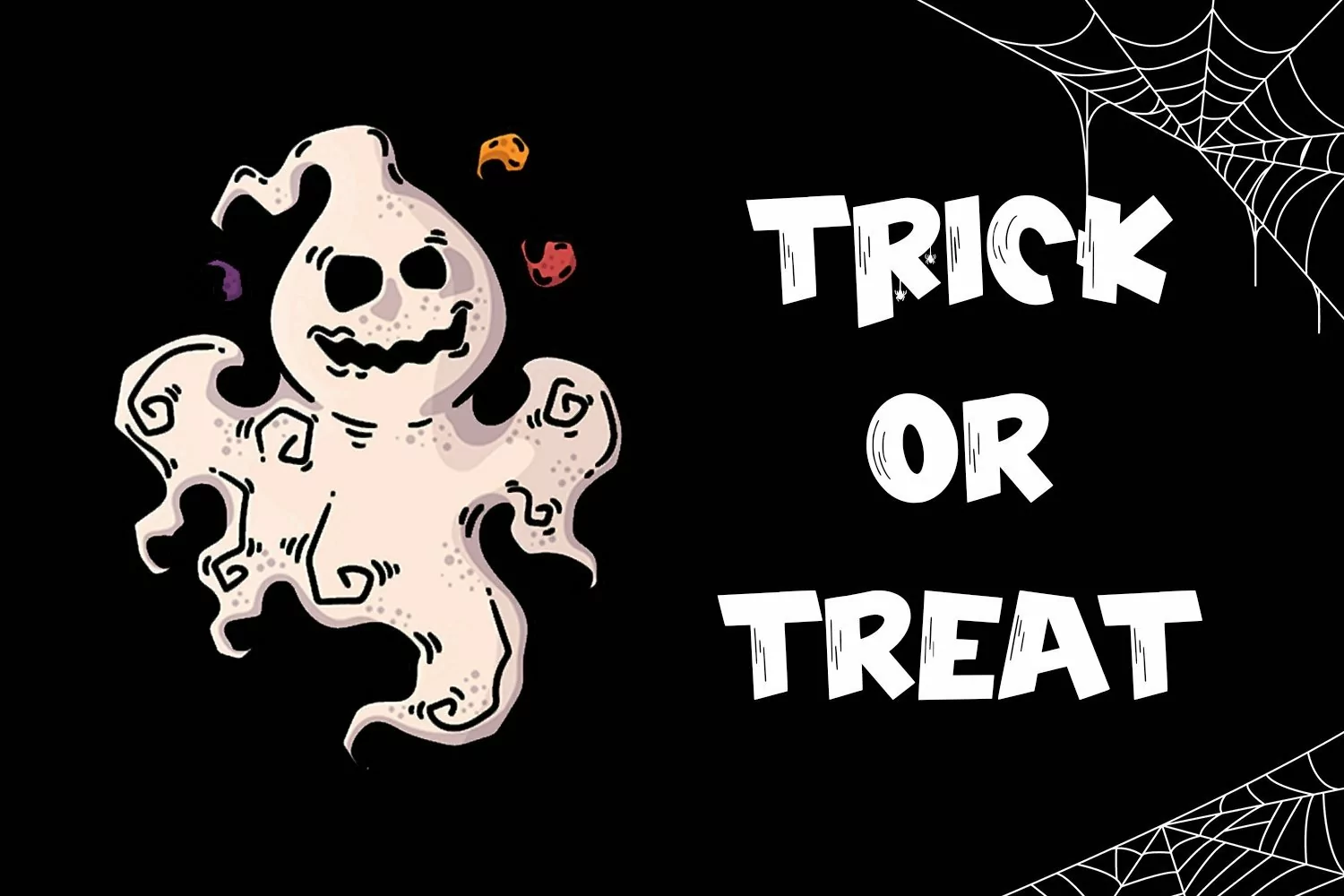
Web Font Reliquary - Halloween Display Font that contain lowercase, uppercase, symbol, and also support multi language. There’s a lot ligatures in this font. This Font also comes with ligatures, alternates and many more. this font suitable for fashion, branding, catalog and other design what you want.
Reliquary